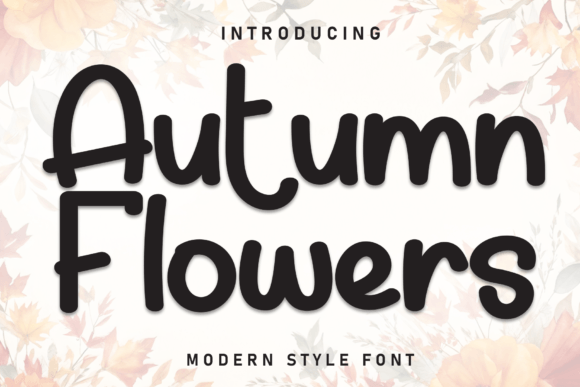
Cozy Up with Autumn Flowers: A Bold Handwritten Font
As designers, we’ve all been there – stuck on a project, searching for that perfect font to capture the essence of a season or theme. I recall working on a fall-themed invitation for a friend’s wedding, determined to create something warm and inviting. That’s when I stumbled upon Autumn Flowers, a bold handwritten font that instantly transported me to a cozy autumn afternoon.
- ✨ Unique and playful style: Autumn Flowers has a distinct, hand-crafted feel that sets it apart from more generic fonts.
- ✅ Perfect for fall-themed projects: The font’s warm, earthy tones evoke the feeling of crunchy leaves and cozy sweaters.
- 💕 Great for invitations and decor: Whether you’re designing wedding invites or seasonal decorations, Autumn Flowers adds a personal touch.
A Few Quirks to Consider
While Autumn Flowers is an excellent choice for many projects, there are a few things to keep in mind:
- 🤔 Legibility at small sizes: As with many handwritten fonts, Autumn Flowers can become a bit tricky to read at very small sizes.
- ⚠️ Limited use for body text: While it’s perfect for headings and titles, the font’s bold, playful style may not be the best choice for longer blocks of text.
The Story Behind Autumn Flowers
Autumn Flowers was designed with the intention of capturing the warmth and coziness of the fall season. The designer aimed to create a font that felt like a handwritten note from a friend – playful, inviting, and full of personality. By combining bold lines and delicate flourishes, Autumn Flowers brings a sense of comfort and approachability to any project.
Q: Is Autumn Flowers suitable for digital use?
A: Absolutely! Autumn Flowers works beautifully for digital projects, from social media graphics to website headers.
Q: Does Autumn Flowers support OpenType features?
A: Yes, Autumn Flowers includes OpenType features like stylistic alternates and glyphs, which can add extra depth and interest to your designs.
Q: Can I use Autumn Flowers for both print and digital projects?
A: Yes, Autumn Flowers is versatile enough for both print and digital use, making it a great addition to your font library.